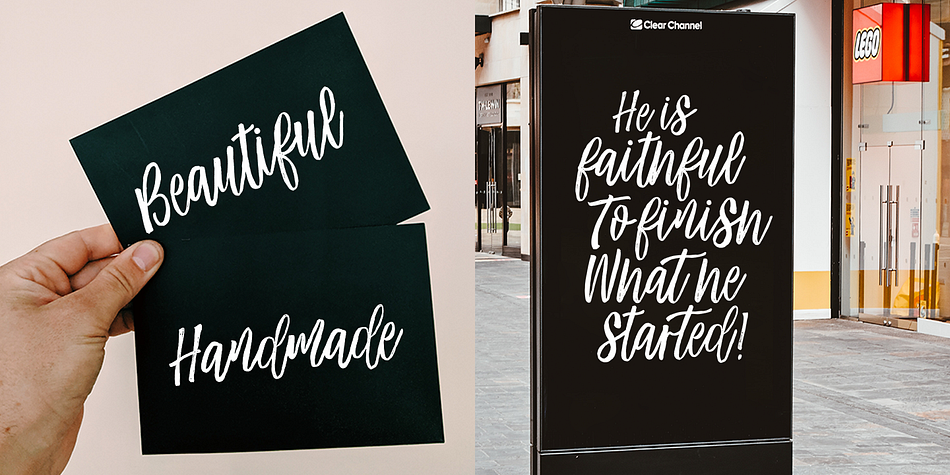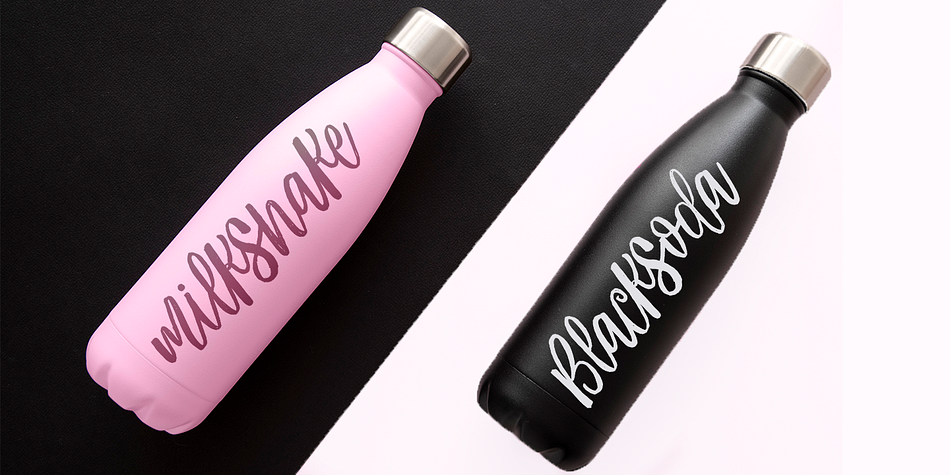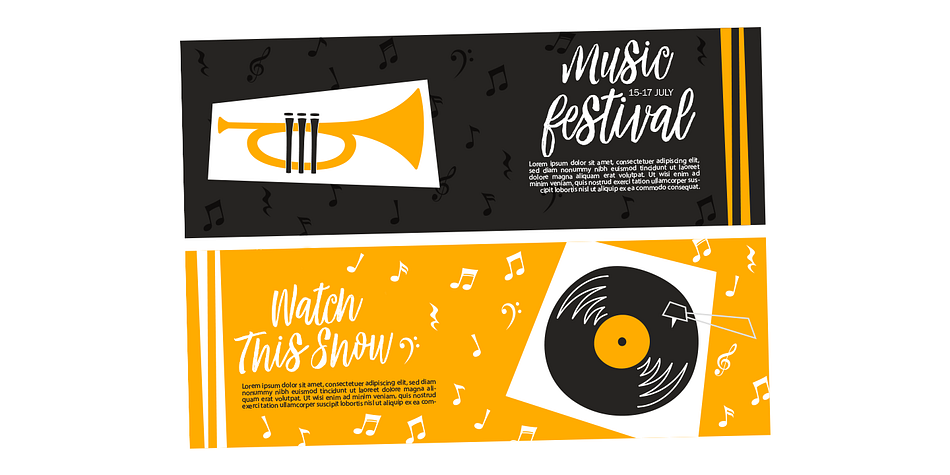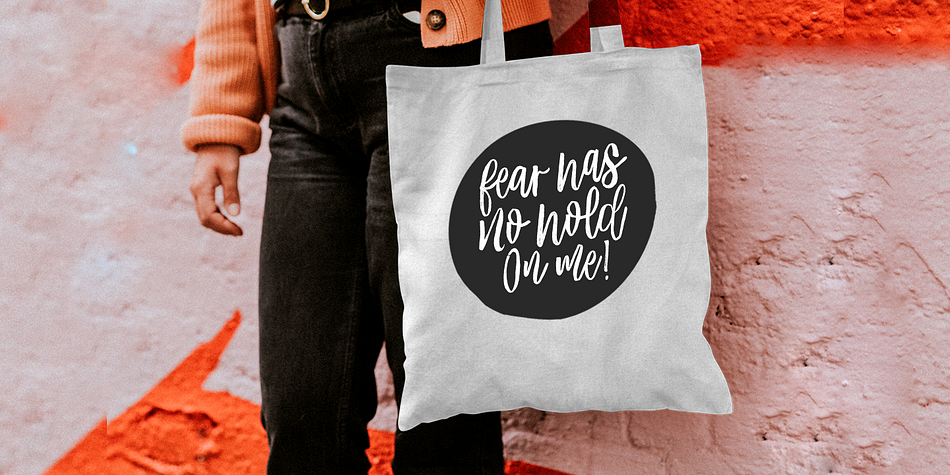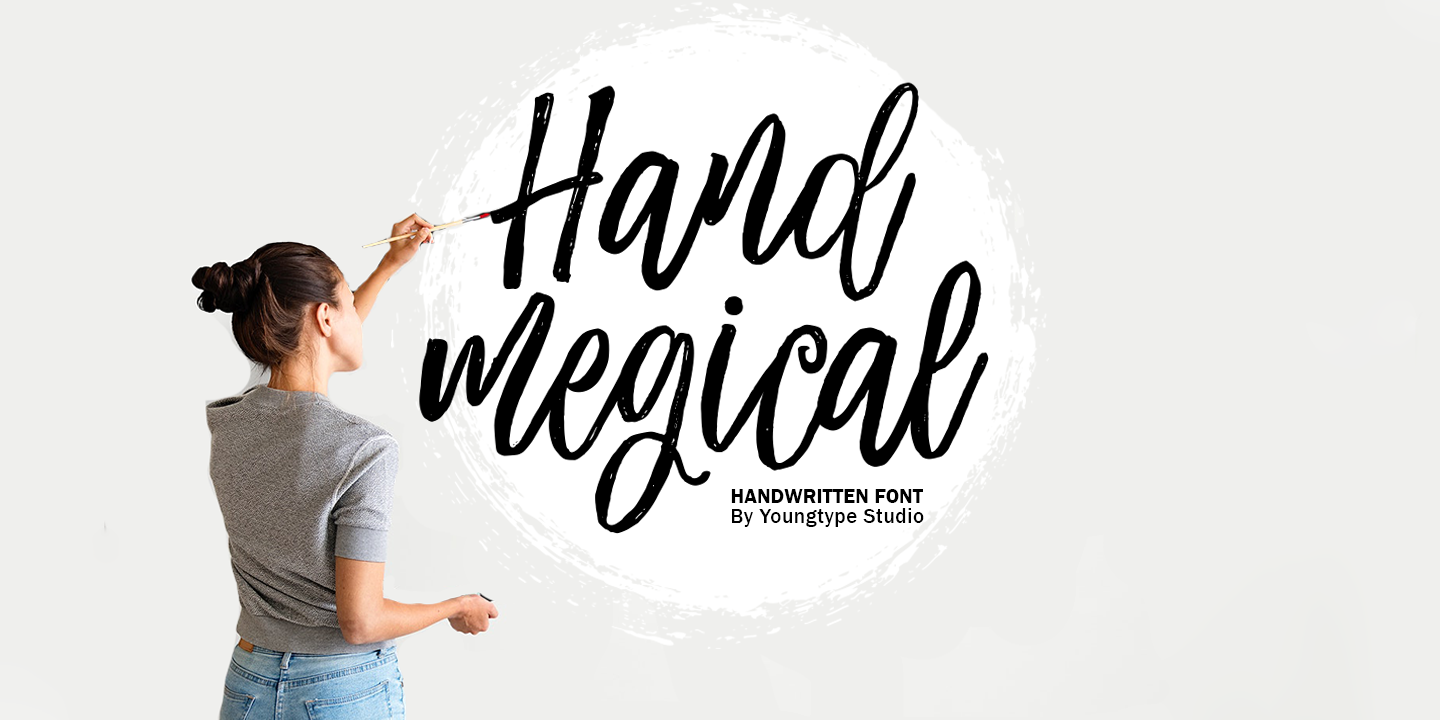
Hand Megical
Hand Megical is a brush script font family published by Youngtype Studio.
Hand Megical are modern font sets featuring an organic, dynamic and energetic style. They can be used for a variety of purposes, such as titles, signatures, logos, correspondence, wedding invitations, letterheads, nameplates, labels, newsletters, posters, badges and much more.